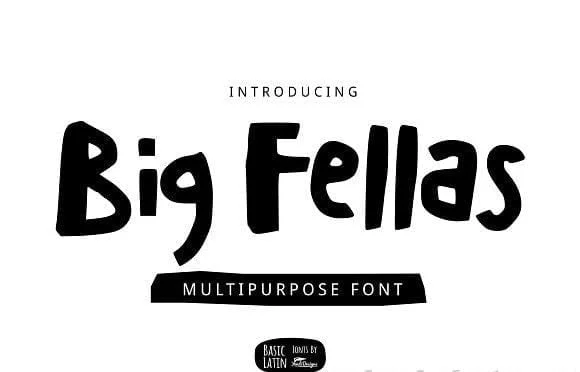
Big Fellas Cute Font is perfect for children's book covers, playful brand logos, toy packaging, kids' party invitations, nursery decor, educational materials, cartoon character designs, children's clothing labels, fun social media posts, and cheerful greeting cards that require a friendly and approachable typographic personality.
This font is exciting because it combines bold, chunky letterforms with an adorable, friendly character that instantly brings smiles and creates a welcoming atmosphere. The playful design and rounded edges make it perfect for connecting with young audiences while maintaining excellent readability, ensuring messages are both fun and clearly communicated.
The Big Fellas Cute Font family typically includes uppercase and lowercase letters, numerals, punctuation marks, basic symbols, and playful character variations that allow designers to create engaging and child-friendly projects with delightful visual appeal.
Whether you're designing for children's products, creating engaging educational content, or developing brand identities that need to feel warm and inviting, Big Fellas Cute Font Free Download provides the perfect balance of fun and functionality. Its charming appearance and friendly personality make every project feel more approachable and joyful, ensuring your designs capture the innocence and happiness of childhood while communicating effectively with families and young audiences across all creative applications.